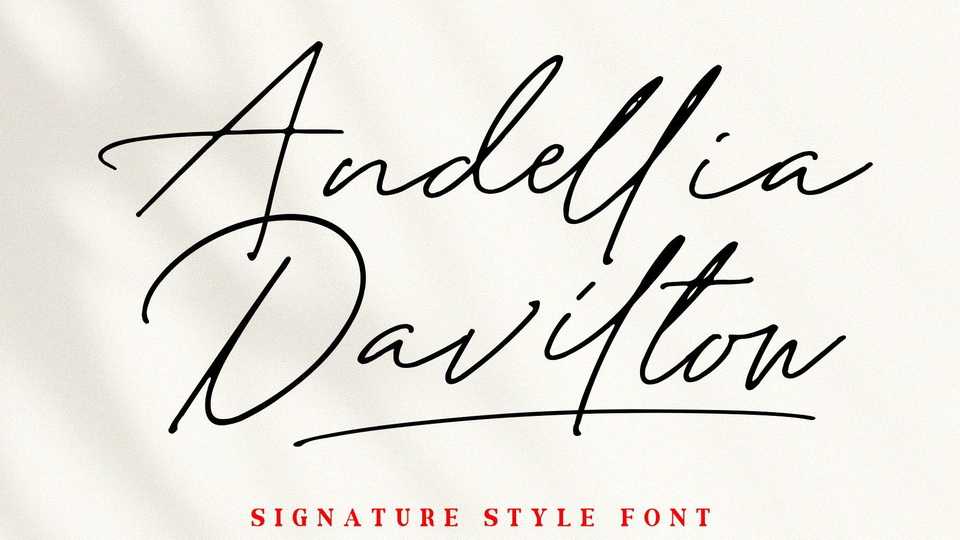
Download Andellia Davilton font, a monoline handwritten script with a natural flow. Andellia Davilton font is perfect for creating signature logos and watermarks for photography studio or wedding invitation, label, logo, magazine best for initial or branding logo signature.